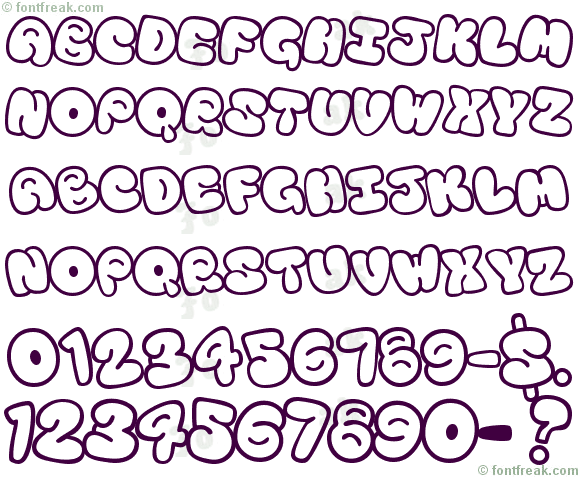
Tourist Trap
The Tourist Trap font by Greywolf Webworks is a playful and captivating display typeface that falls under the decorative category. Released in 2000, this font features a rounded, bubbly design that exudes a sense of fun and whimsy, making it perfect for a variety of creative projects. Its stroke weight is consistent, providing a bold appearance while maintaining a friendly vibe. The contrast between the thick and thin strokes is minimal, which contributes to its approachable look. The spacing is generous, ensuring readability and making it suitable for various applications.
This font is ideal for use cases such as vibrant wedding invitations that aim to capture the joy of the occasion, eye-catching movie posters that target a younger audience, and lively restaurant menus that highlight a fun dining experience. Additionally, it can enhance children's book covers, adding a touch of playfulness that appeals to young readers. Graphic designers, small business owners, and content creators will find this font particularly useful when seeking to inject a sense of charm and personality into their projects.
What sets the Tourist Trap font apart is its unique ability to evoke a sense of nostalgia while remaining modern and fresh. Its cheerful character makes it a go-to choice for designs that aim to engage and entertain. Whether you are looking to add a splash of creativity to your branding or create memorable graphics for an event, the Tourist Trap font offers versatility and charm. Don’t miss the opportunity to elevate your design projects with this unique typeface—explore the Tourist Trap font free download today and infuse your work with its delightful spirit.